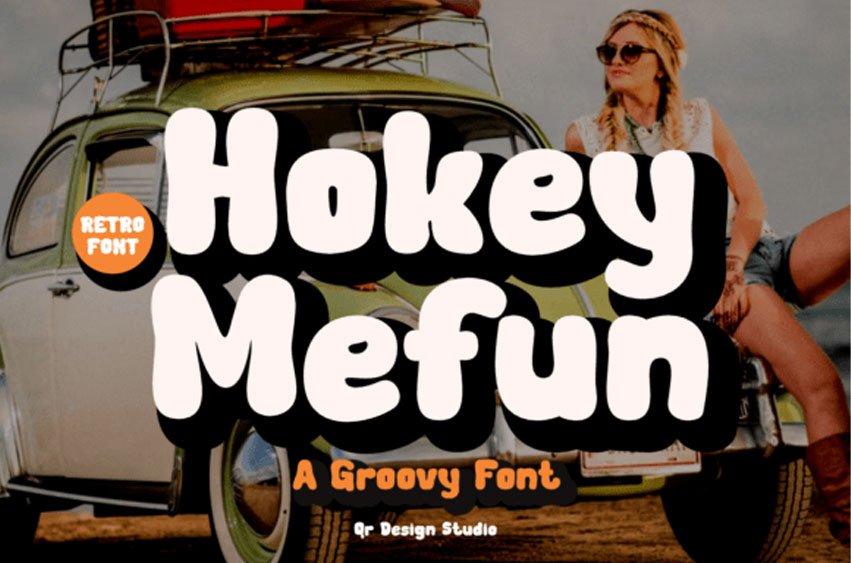
Hokey Mefun Font is a groovy retro display sans that channels 60s/’70s bubble lettering. Thick, rounded strokes swell into pillowy forms, with soft corners and a high x-height that keeps words dense and punchy. The letters carry a lively bounce—verticals subtly lean, bowls bulge, and counters stay generous—so every word feels playful and upbeat.
Stubby ascenders and descenders tighten the silhouette for poster-ready impact, while smooth terminals and an even color make it highly readable at big sizes. Rounded numerals echo the bubbly vibe, and the spacing invites tight tracking for sticker-like wordmarks. Use it for throwback logos, sunny merch, and bold headlines.